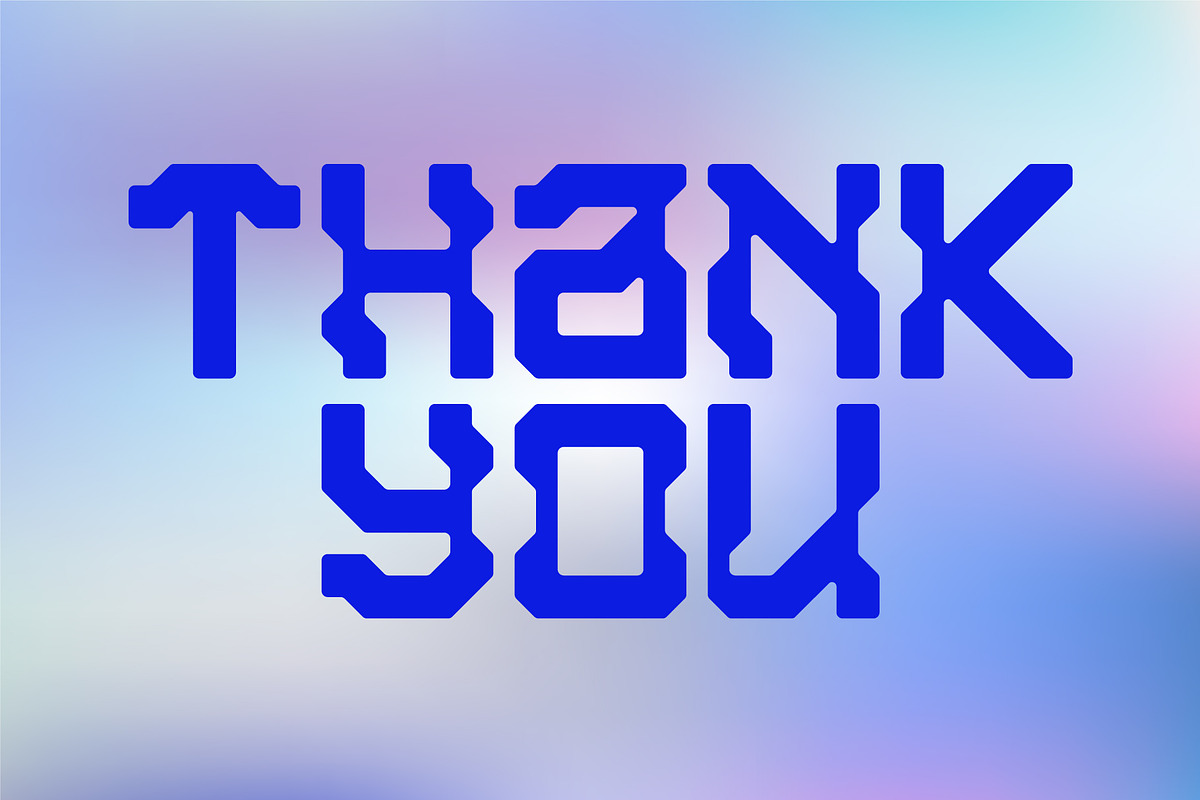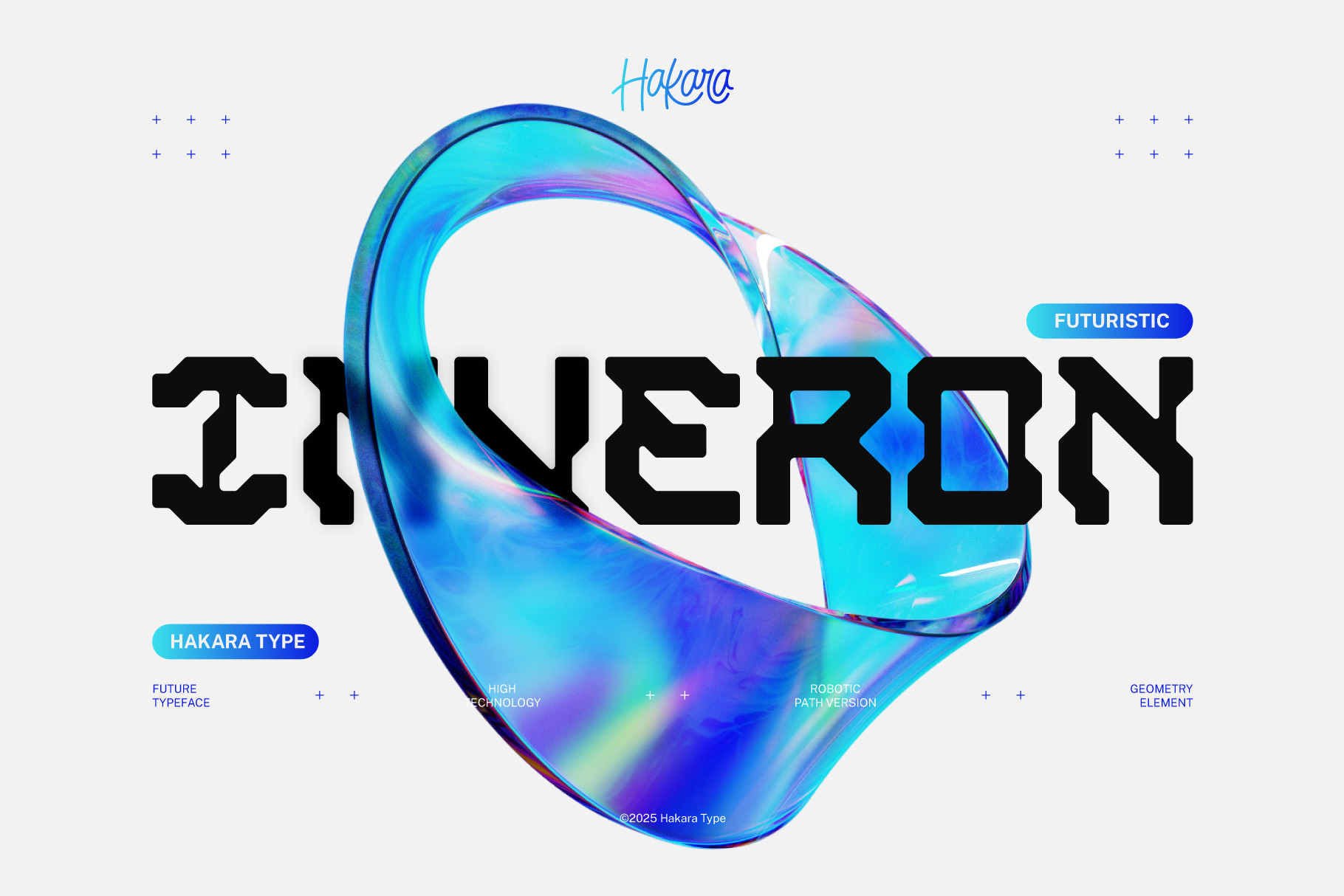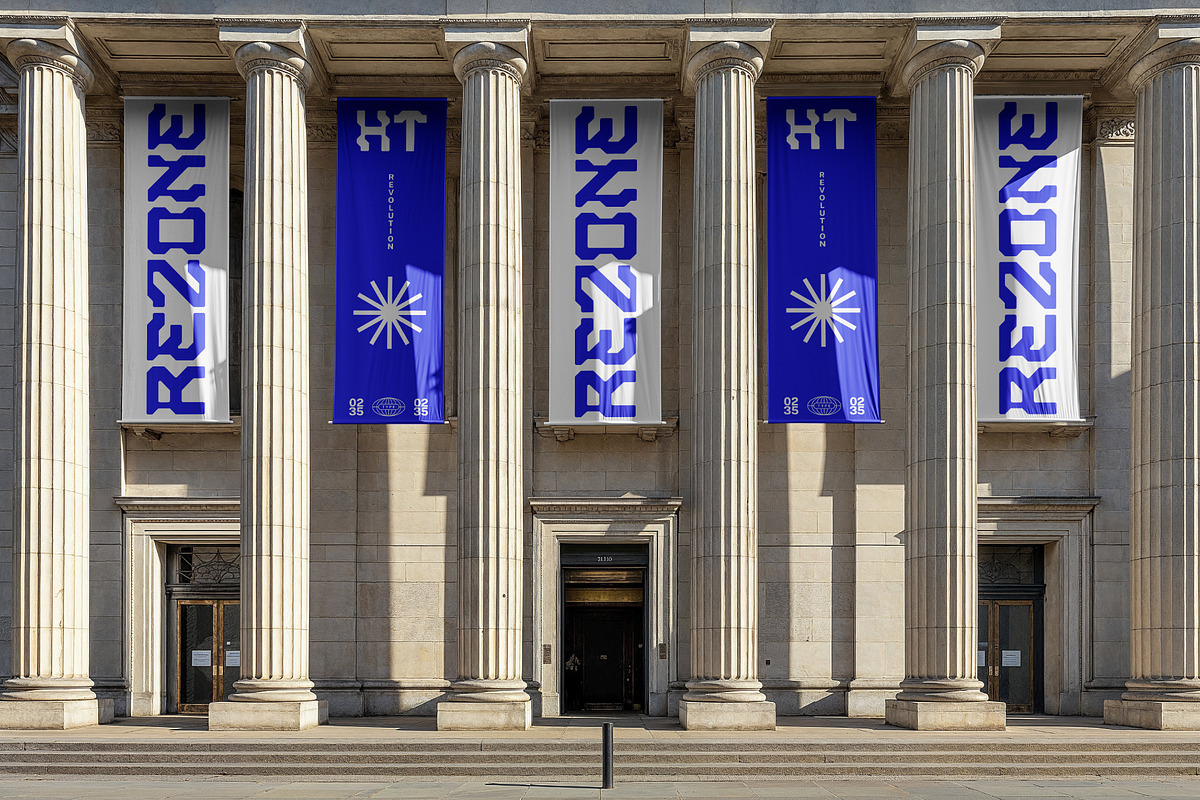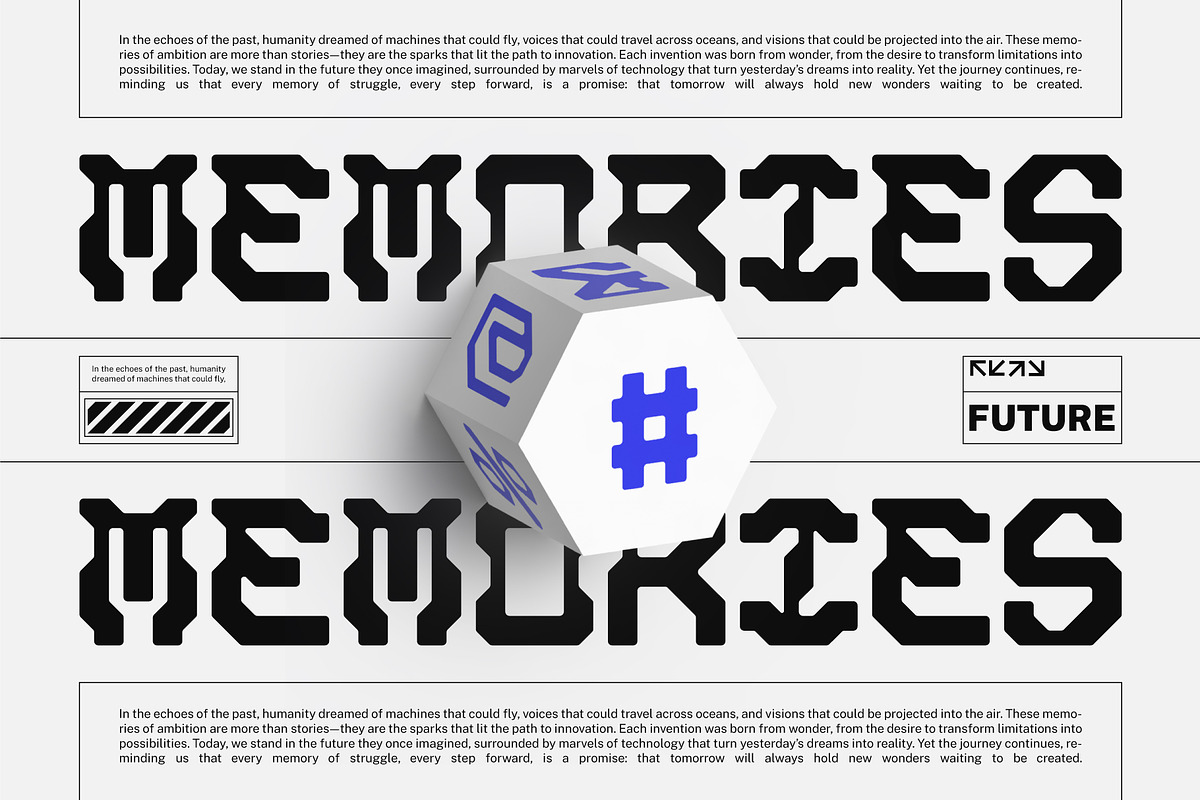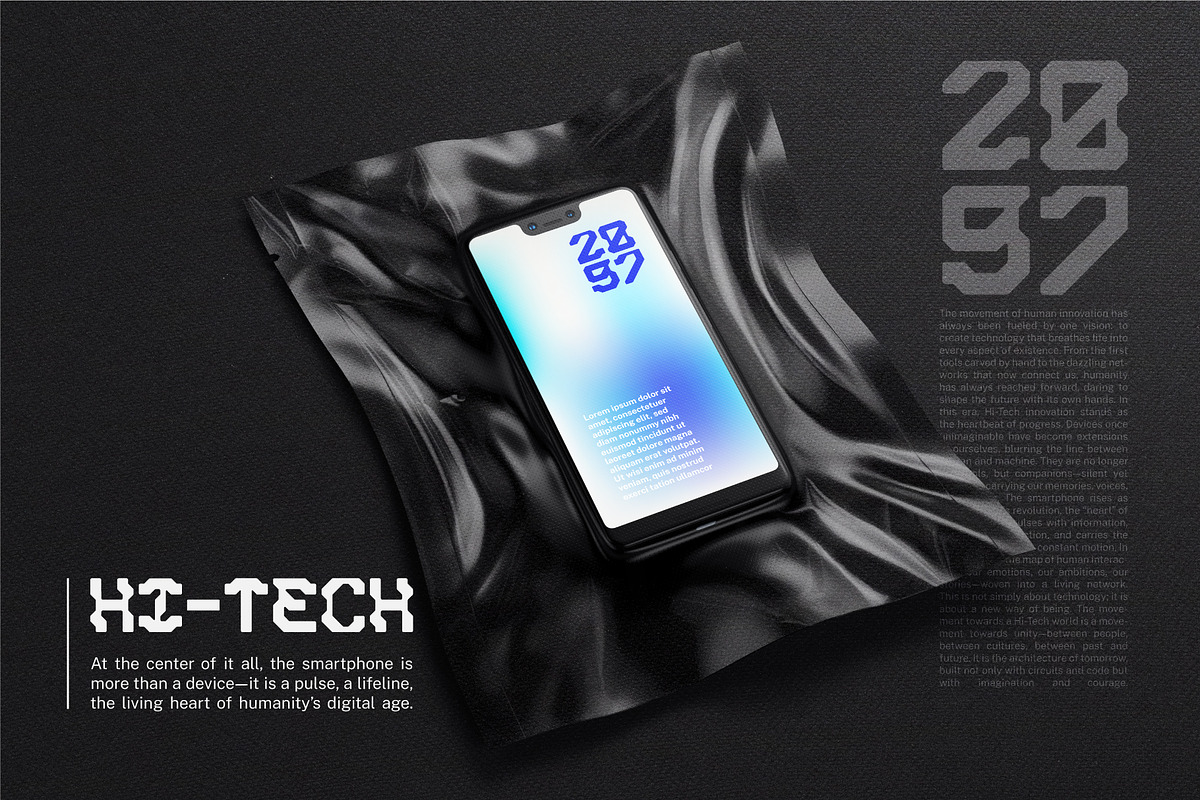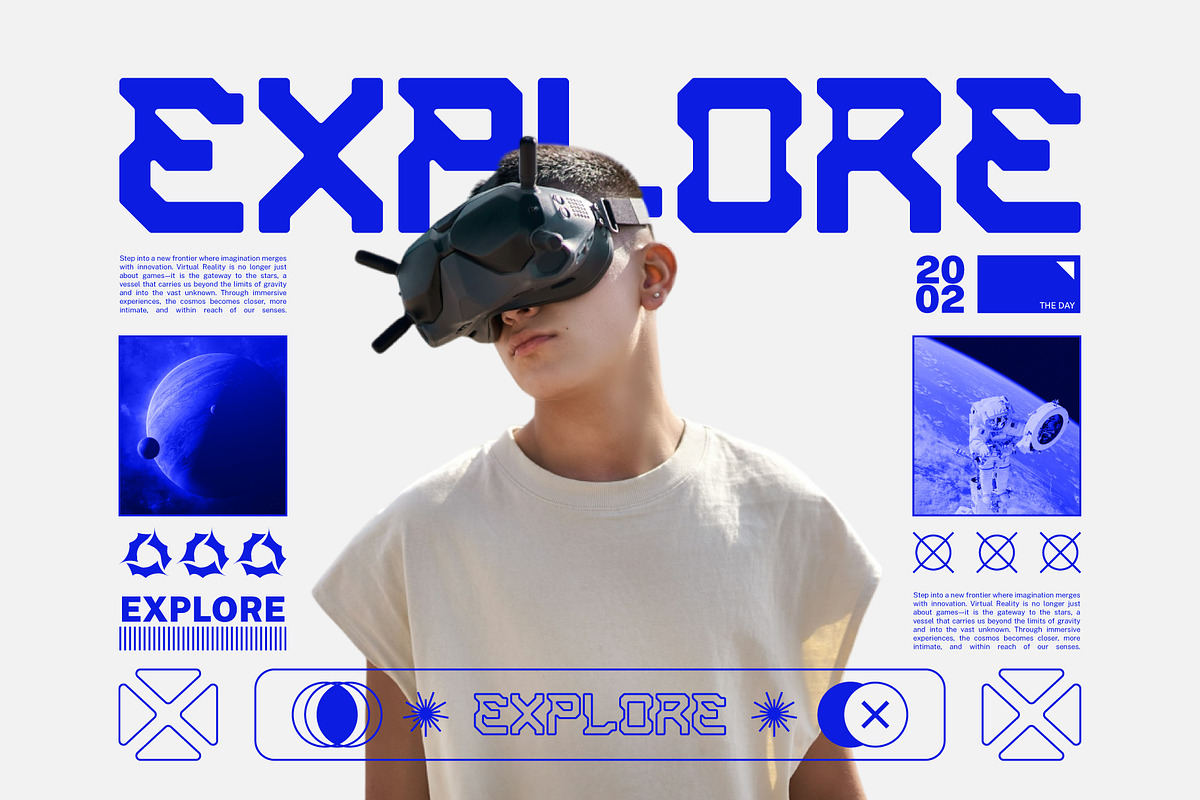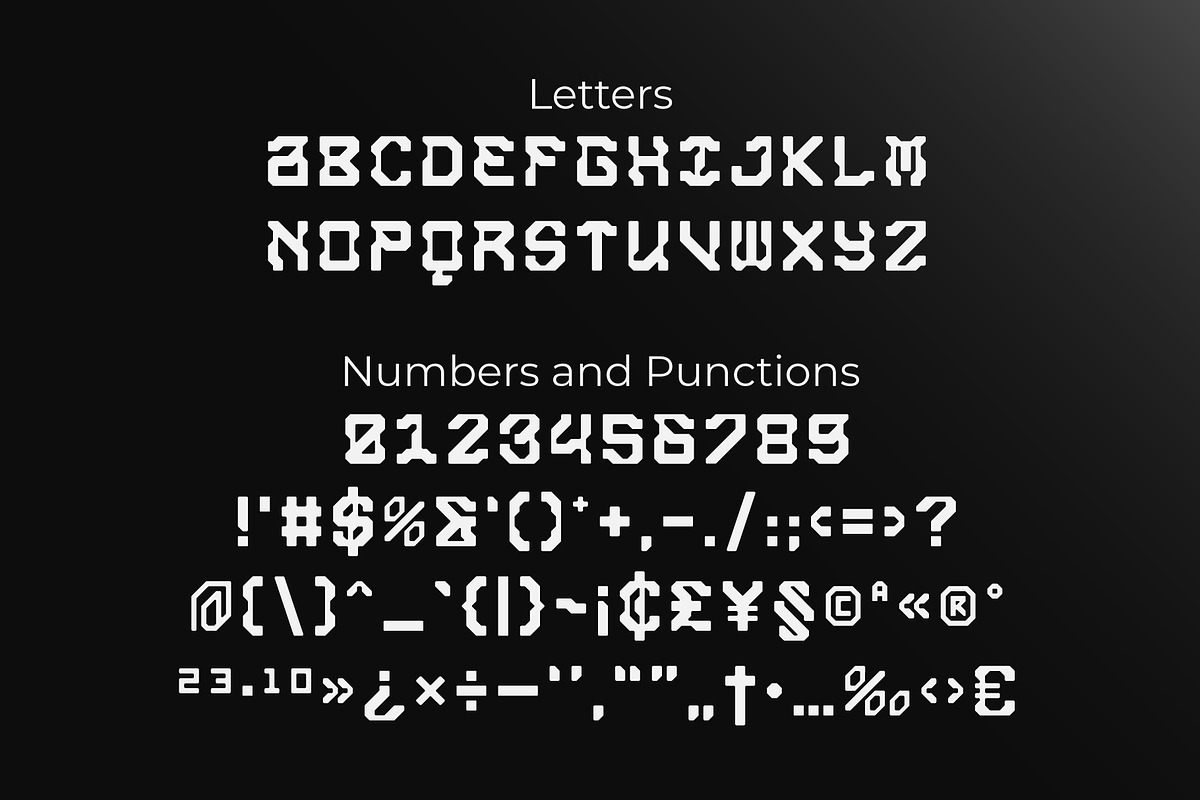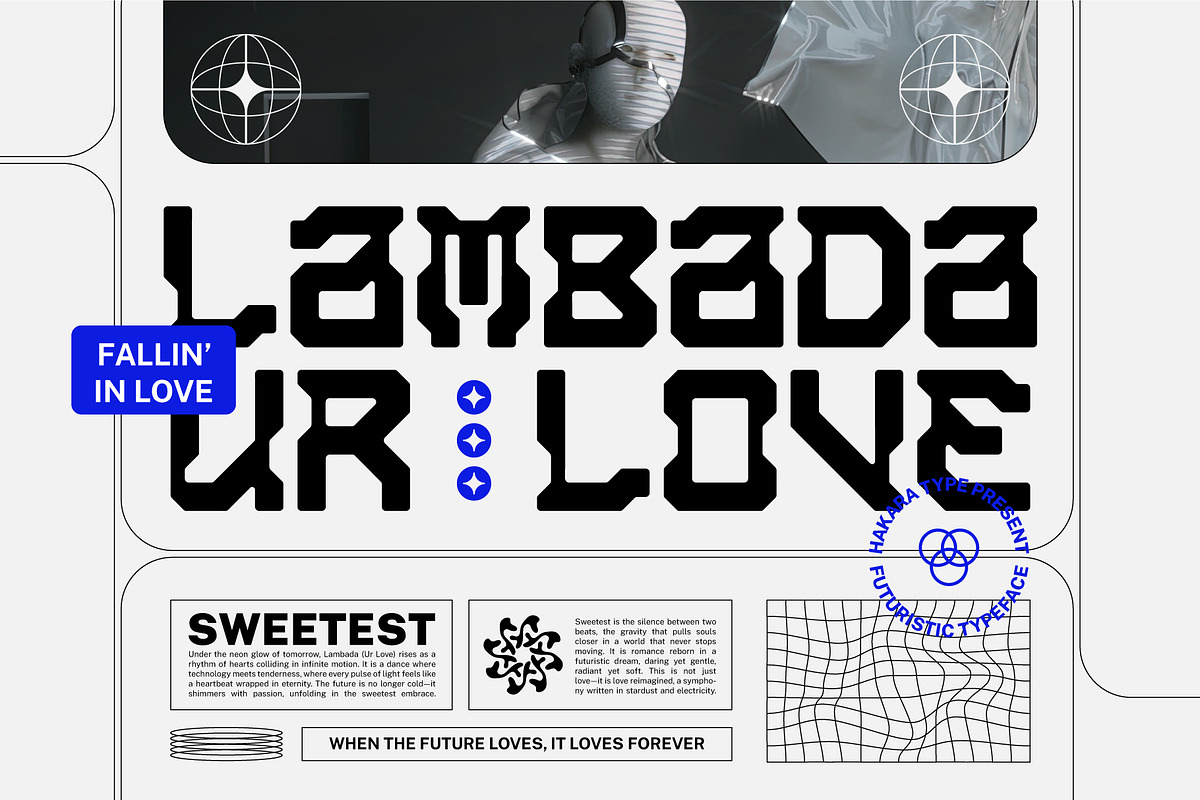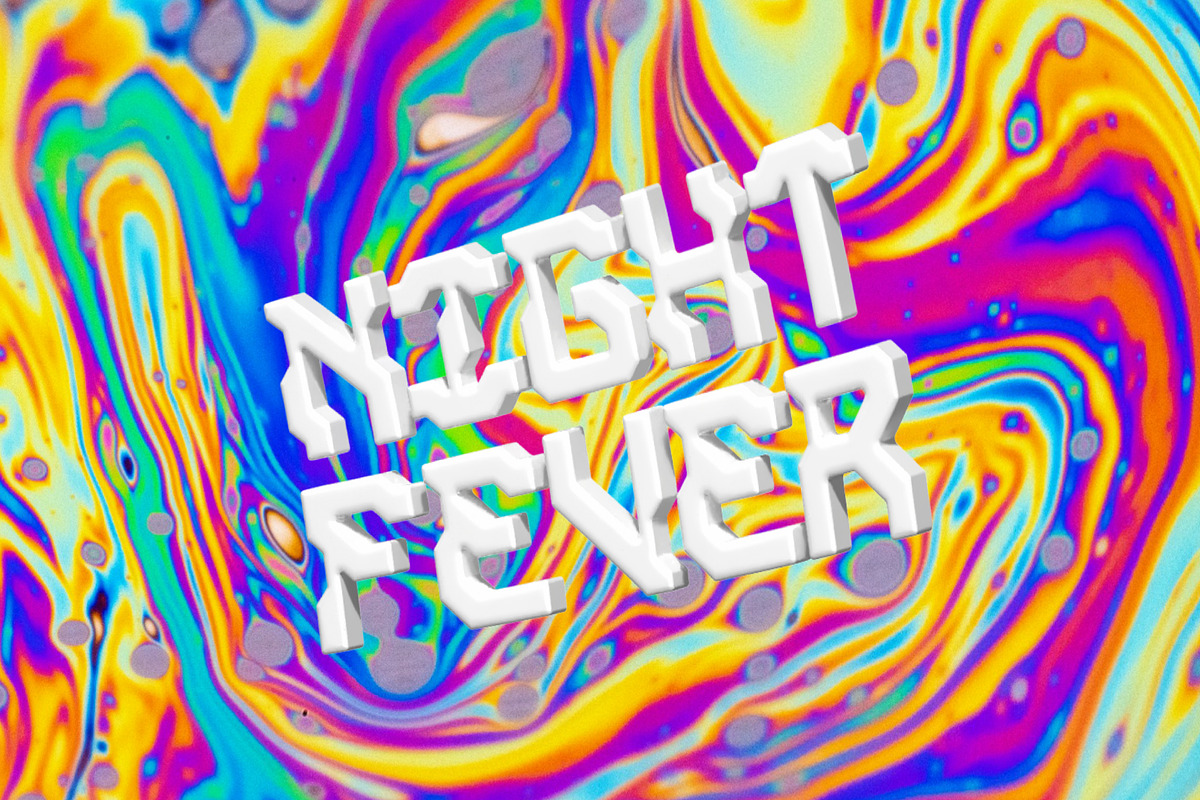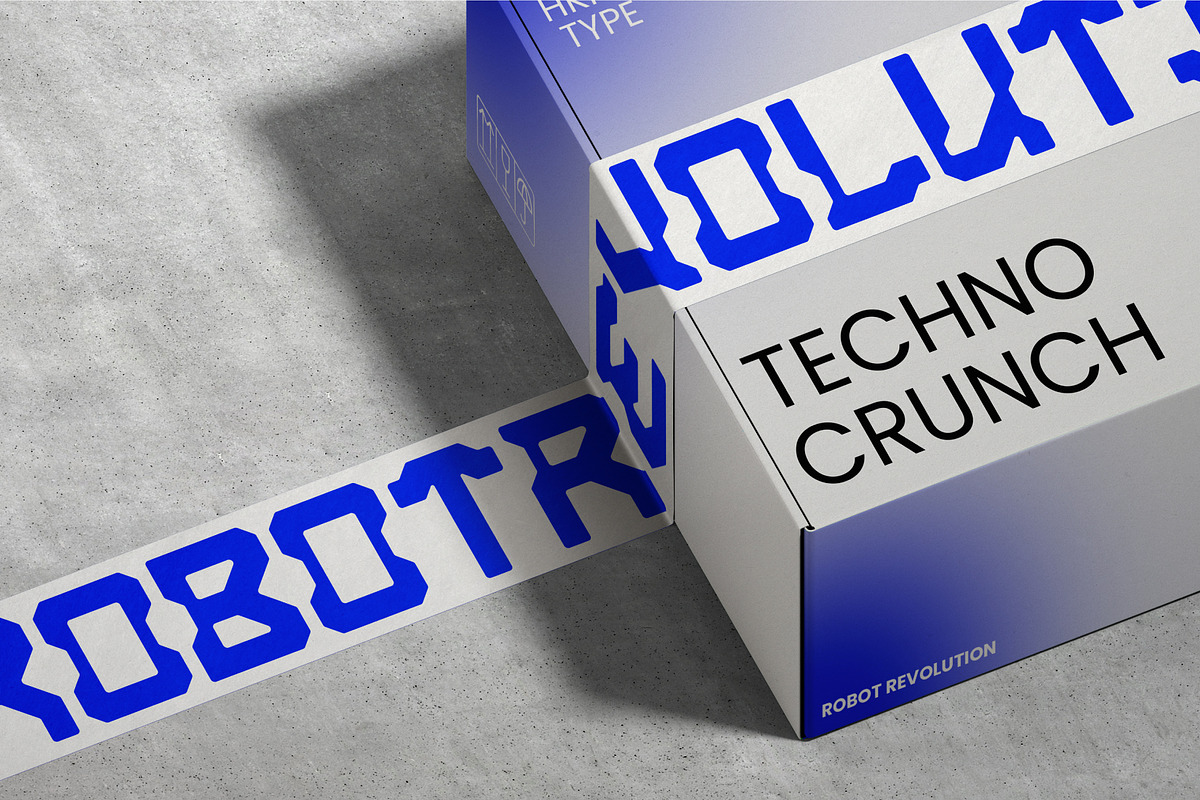
Inveron - Futuristic Font
Inveron is a futuristic display typeface inspired by high technology, robotic paths, and geometric precision. With sharp edges and bold letterforms, this font brings a strong sci-fi, cyberpunk, and digital aesthetic to your design projects. Perfect for logos, posters, gaming visuals, tech branding, and modern user interfaces, Inveron stands out with its unique futuristic style. Designed for designers, creatives, and digital innovators who want to make a bold statement.
Inveron comes with uppercase, lowercase, numbers, function, and included multilingual support.